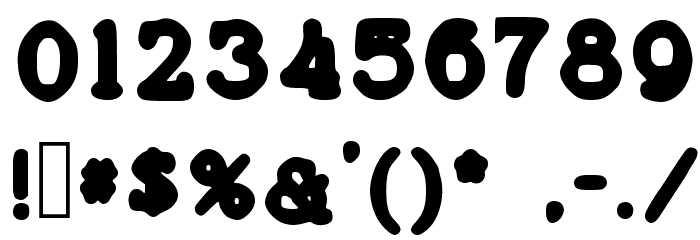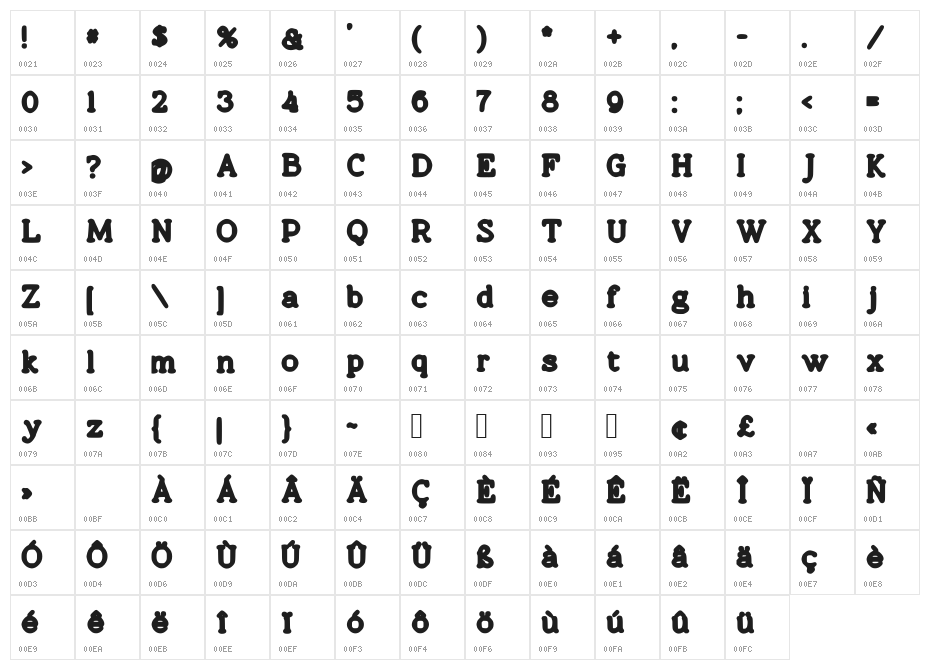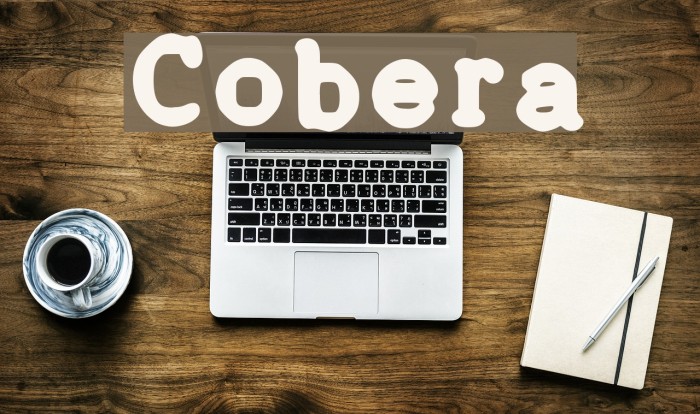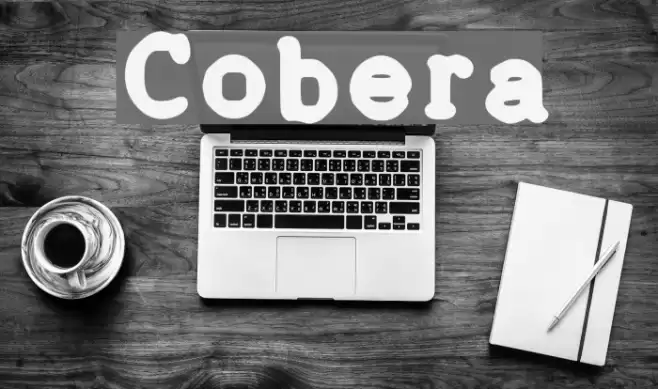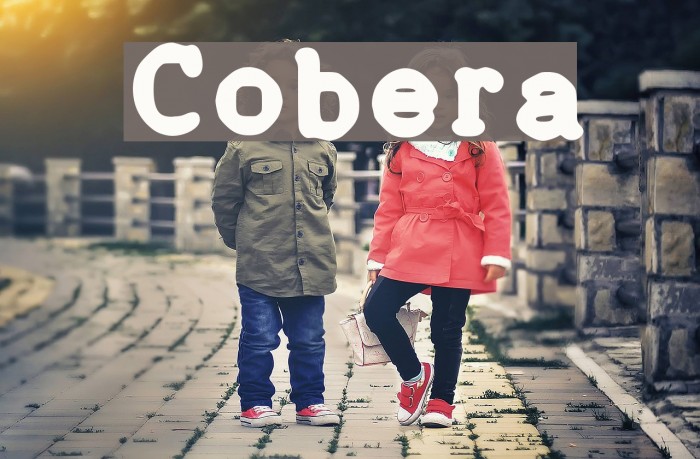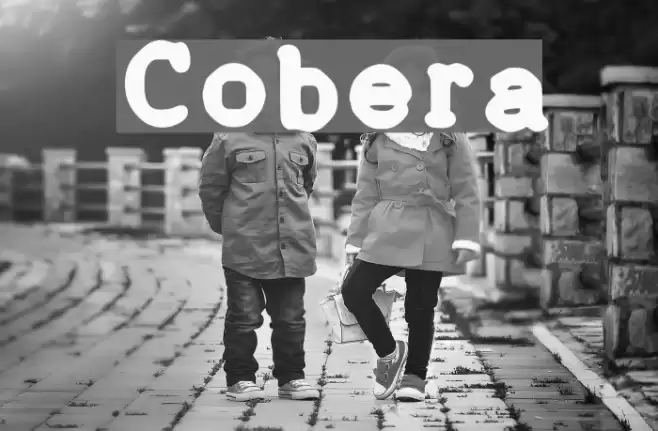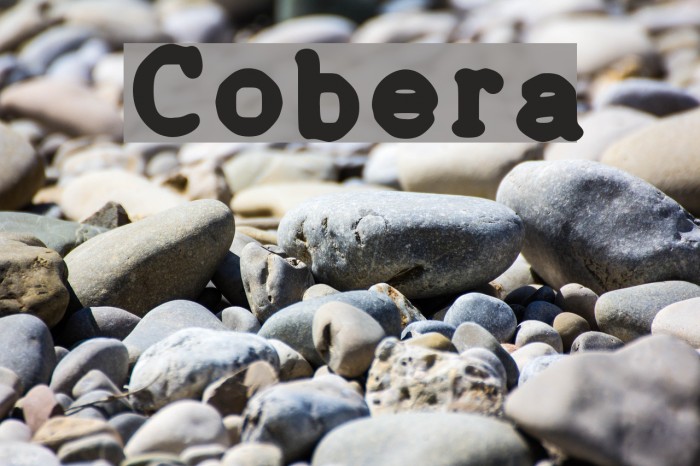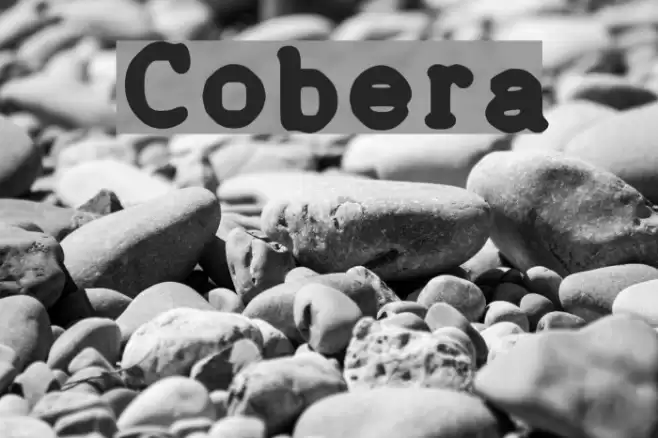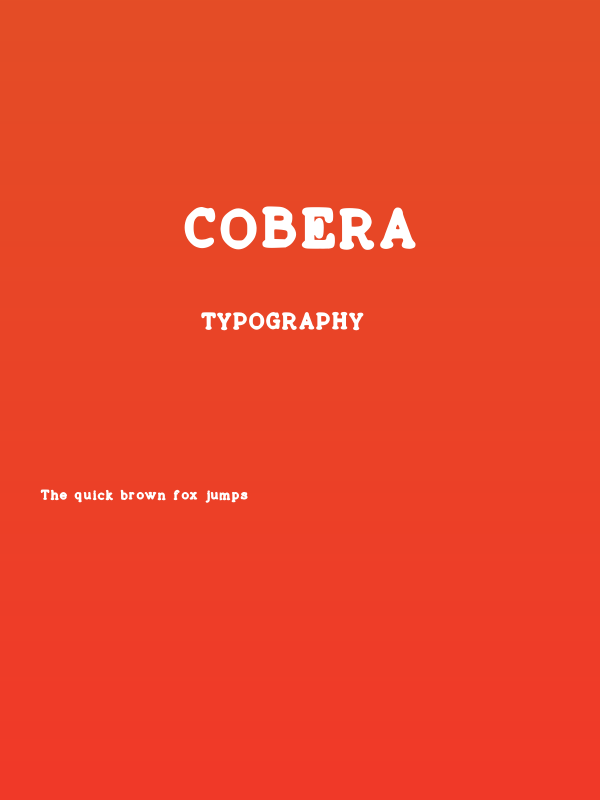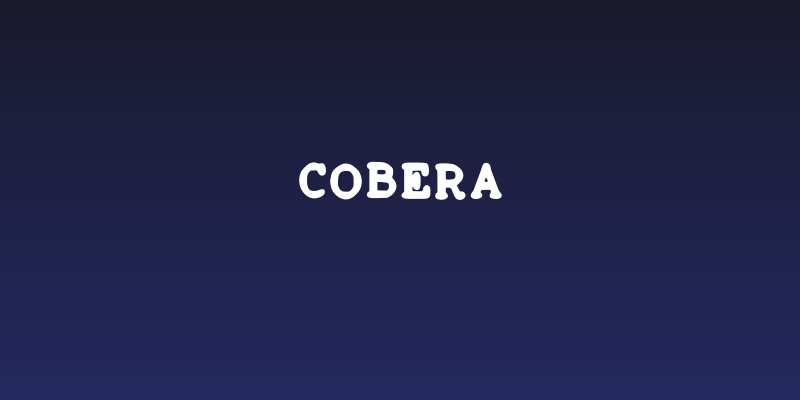
Cobera Font
Cobera Description
This font features bold, rounded characters with a playful and friendly appearance. The letters are thick and have a uniform stroke width, giving them a strong presence. The rounded edges and soft curves contribute to a warm and approachable feel, making it suitable for informal and creative projects. The numbers and special characters maintain the same rounded style, ensuring consistency across all elements. The font's design is both modern and slightly retro, reminiscent of vintage signage or playful branding.
| Overall Style | Playful, Retro |
| Proposed Projects | Ideal for children's books, playful branding, posters, and creative packaging. |